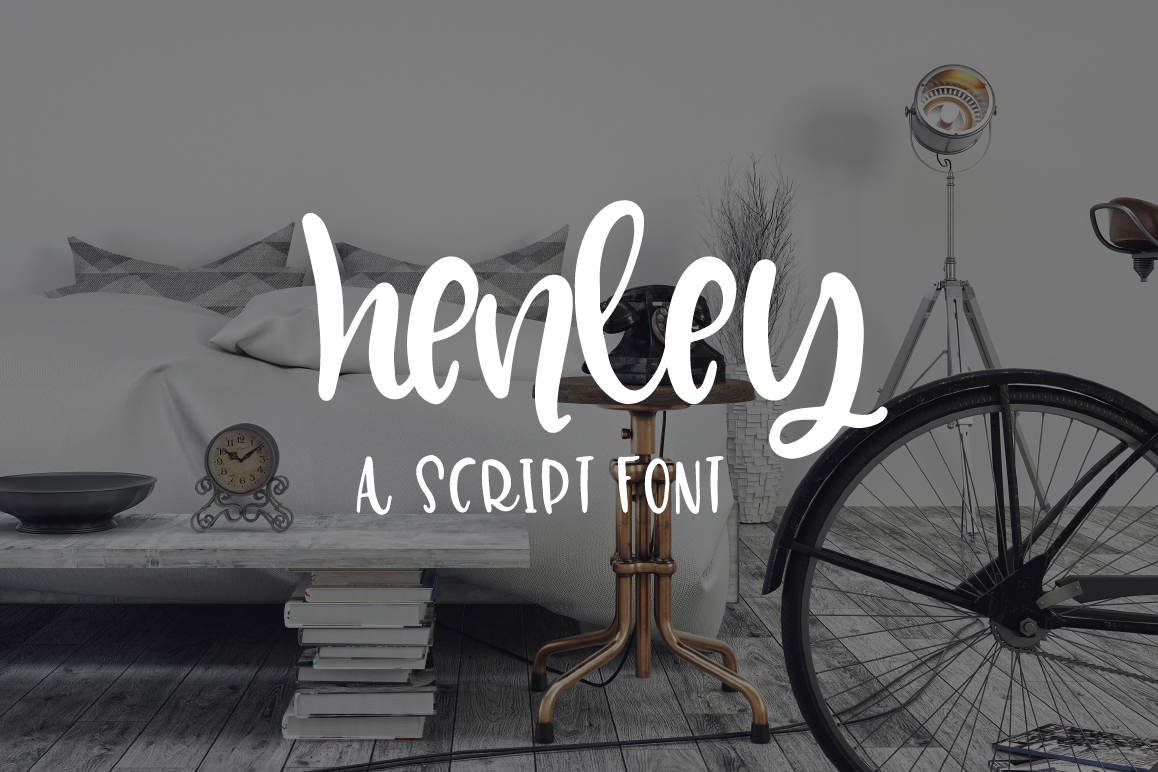
Henley - A Bounce Script
Hello Henley! A fun, thick bounce script great for cutting with vinyl cutters, using in your branding and design work, and so much more!